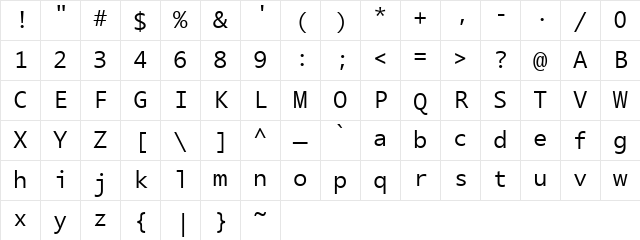
Segoe UI Mono Regular
Foundry: Ascender Corporation
Complete Segoe UI Mono Regular glyph index. Displaying only characters natively supported by Segoe UI Mono Regular font.
Design Context for Segoe UI Mono
Segoe UI Mono uses fixed-width spacing throughout, giving it the structured, systematic character associated with coding environments and technical documentation.
Pro Tip: Use Segoe UI Mono with slightly increased line-height for extended reading - fixed-width spacing can feel dense in longer passages without extra breathing room.
Who designed the Segoe UI Mono Regular font?